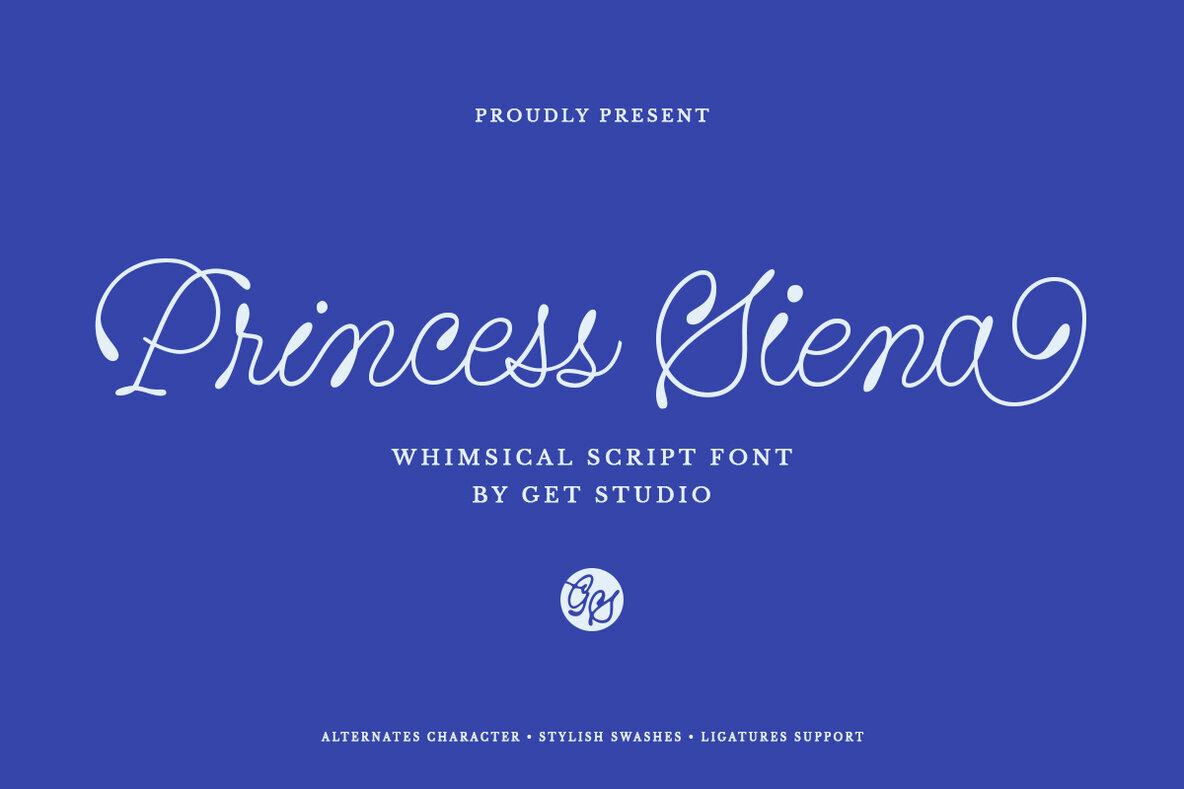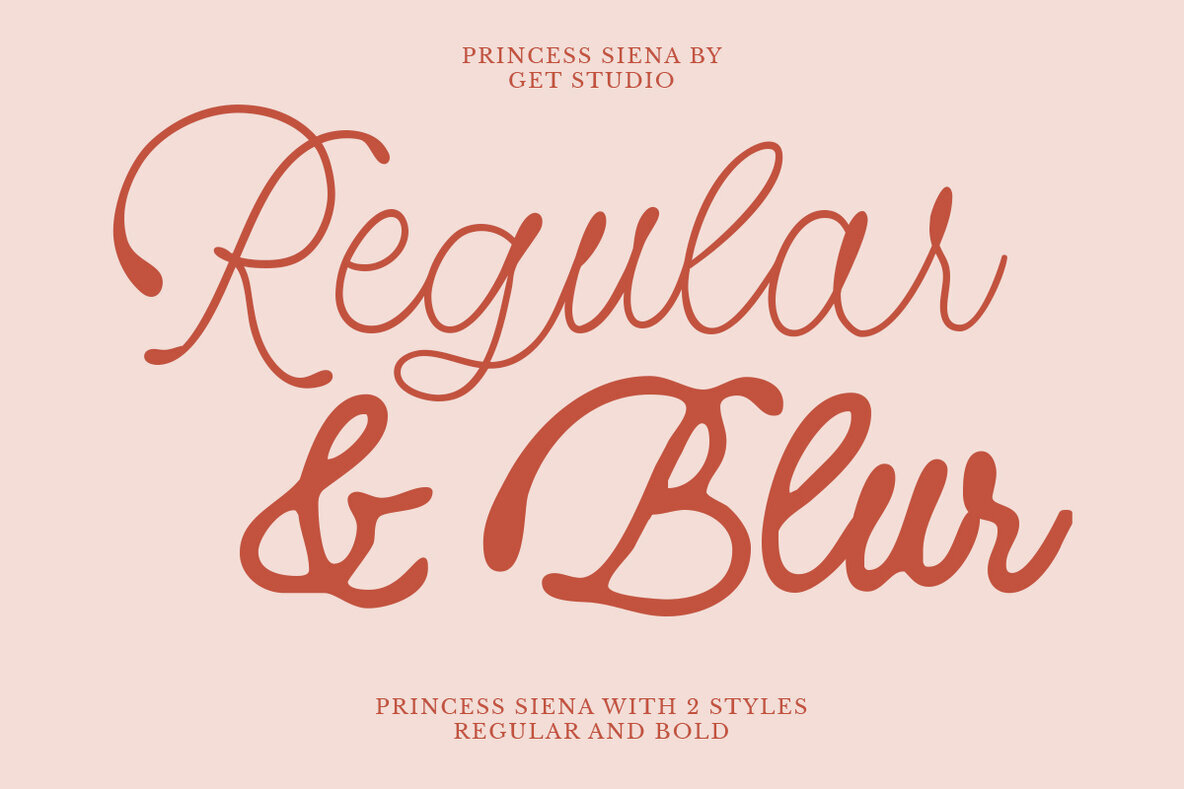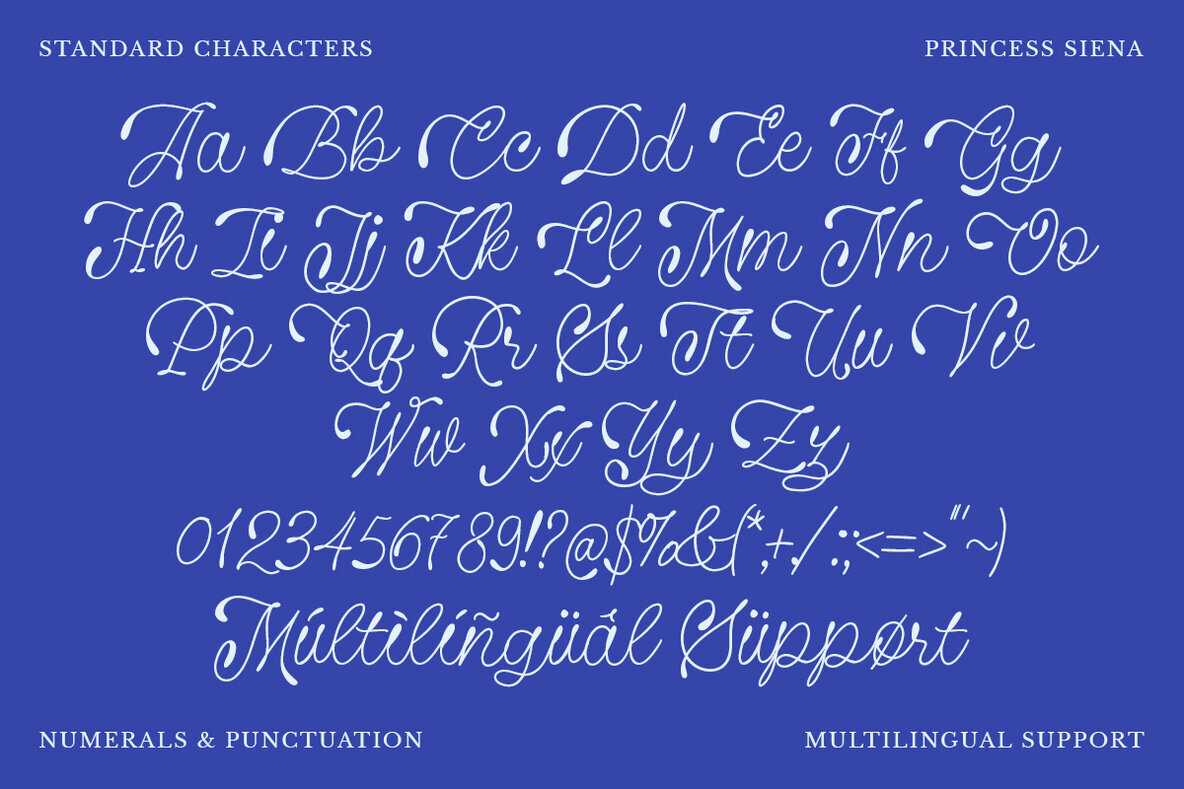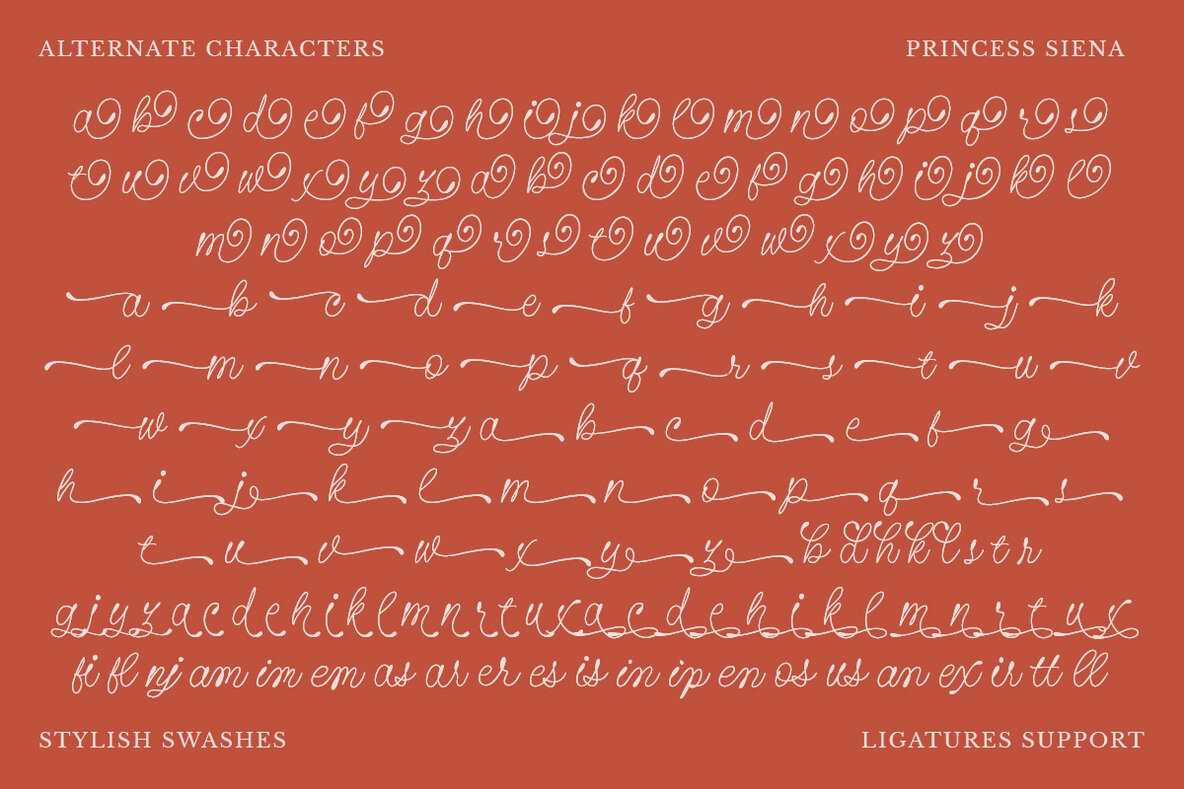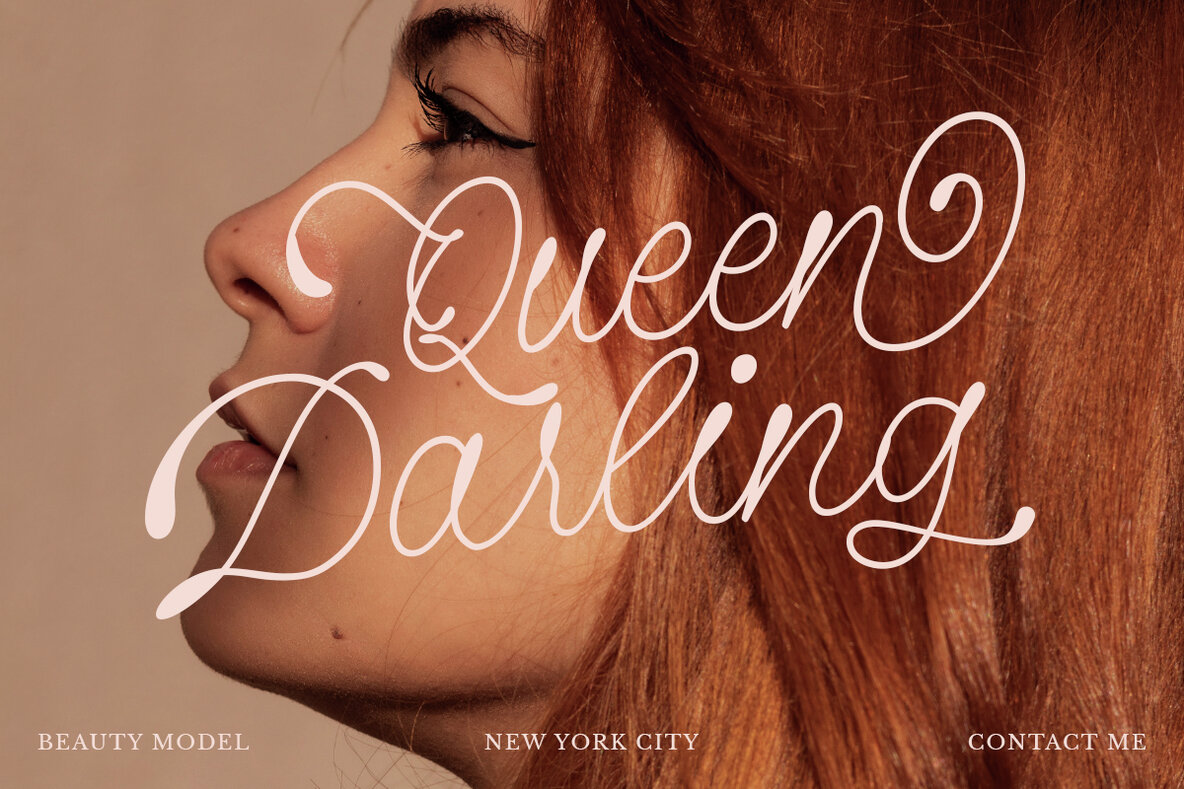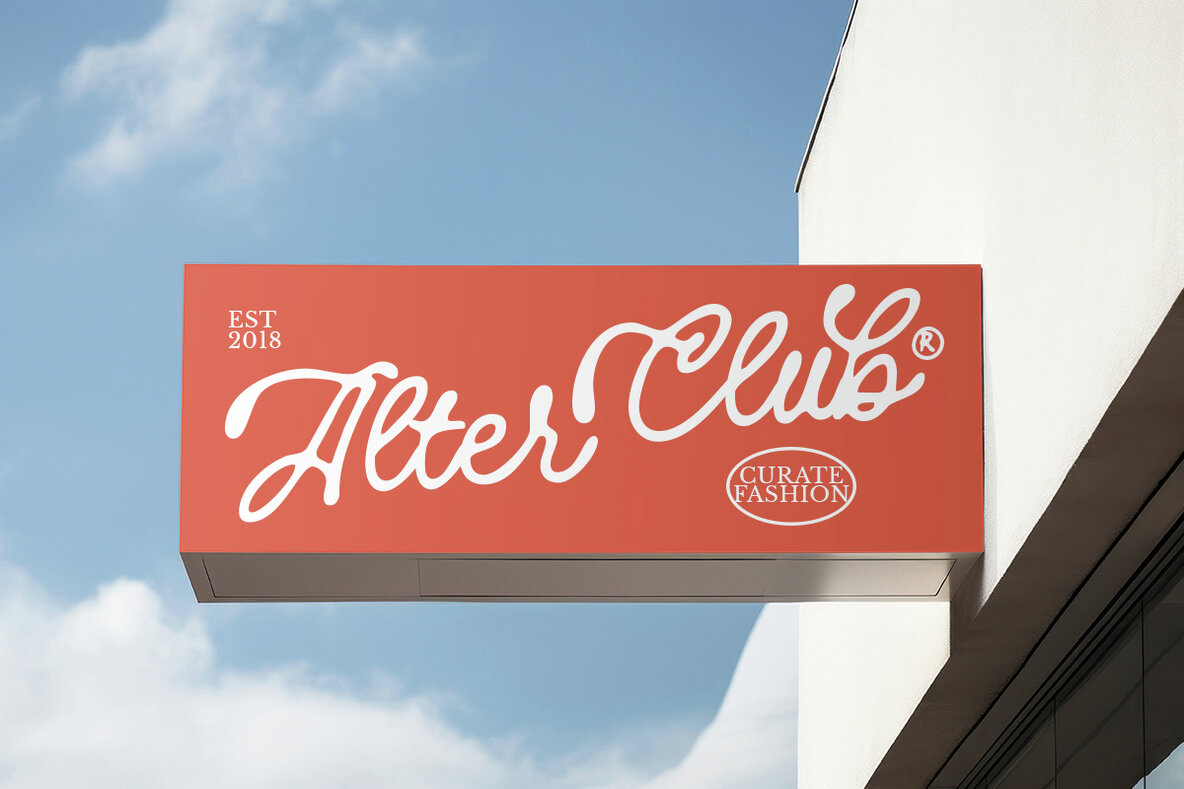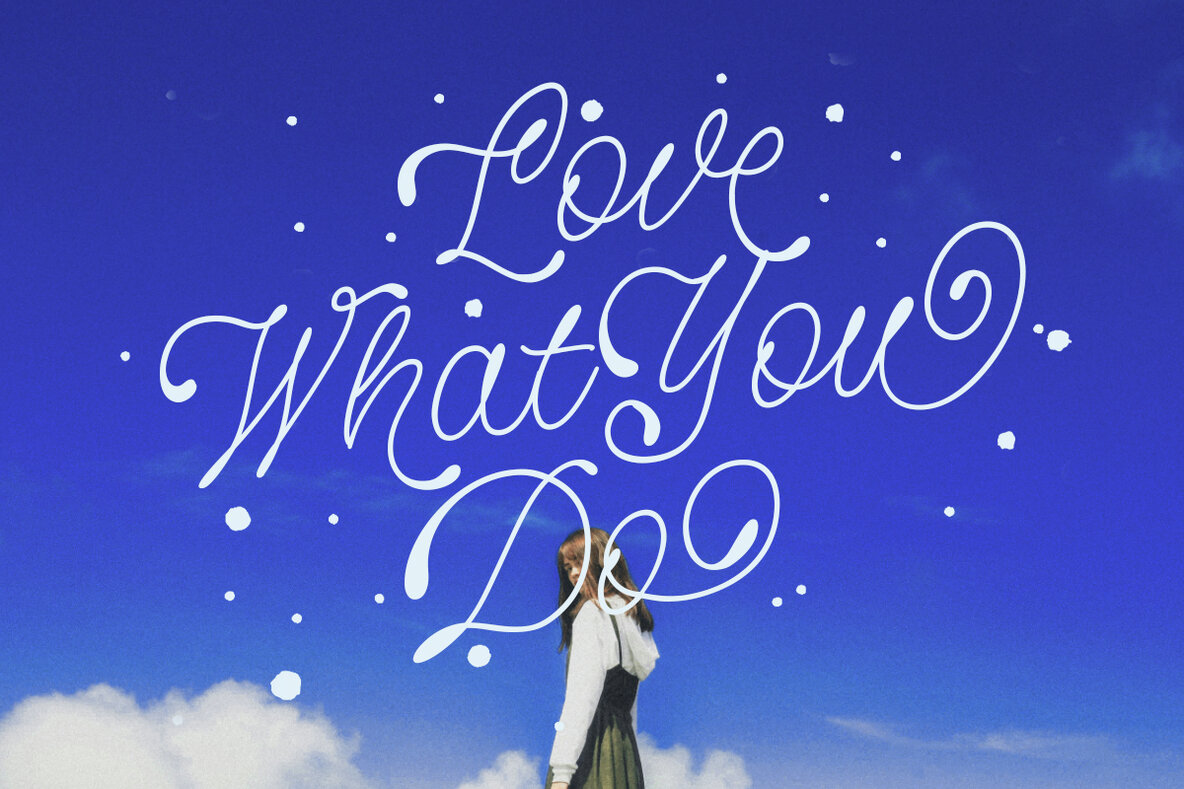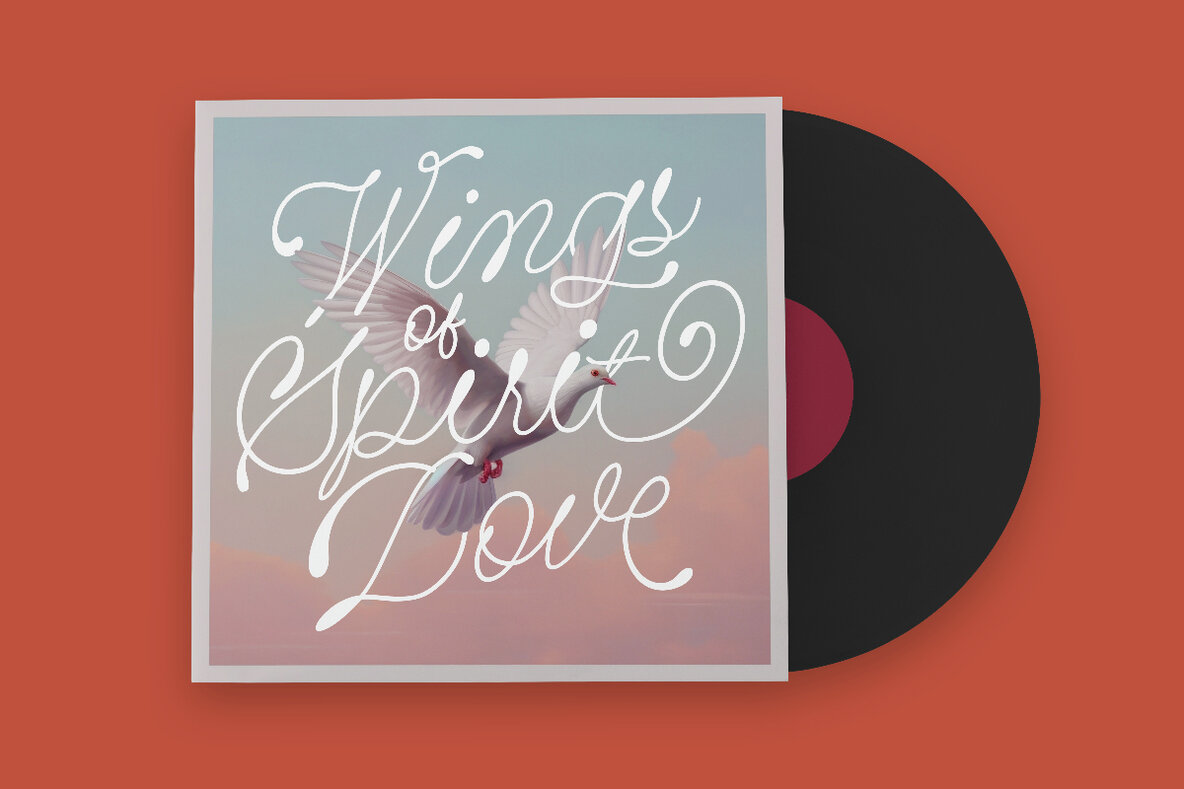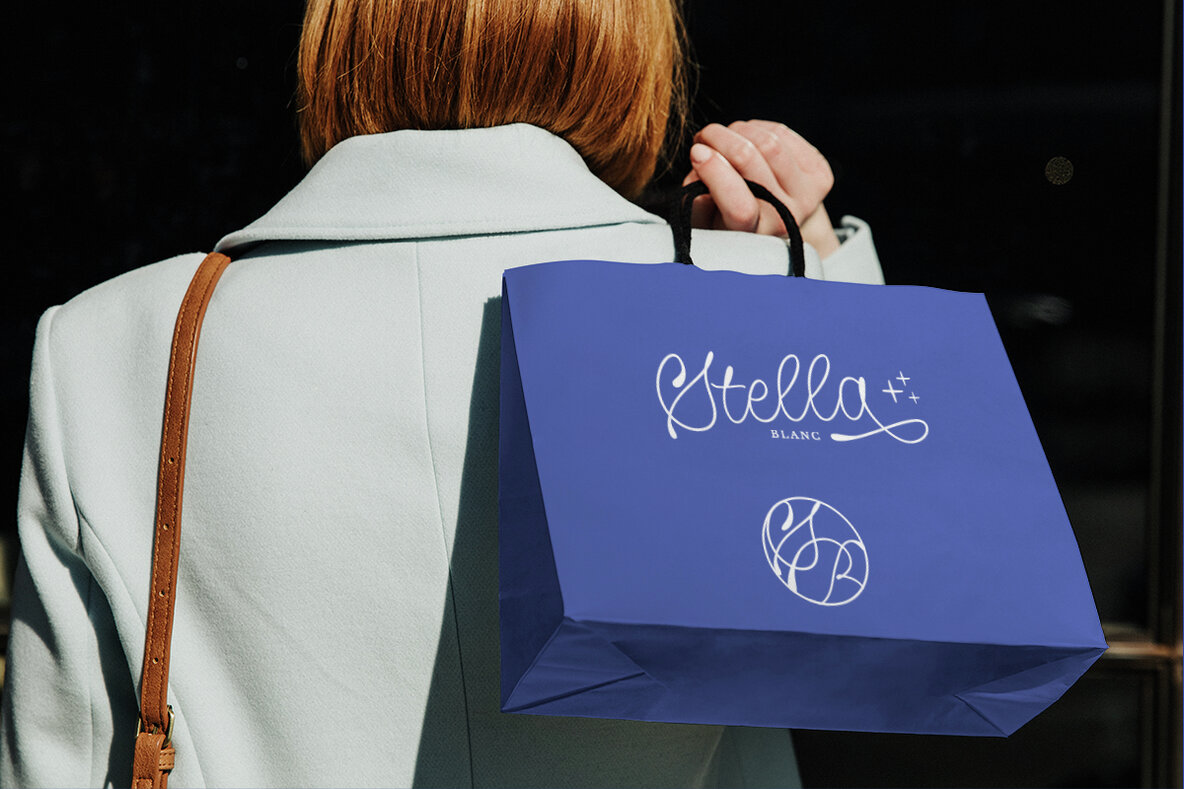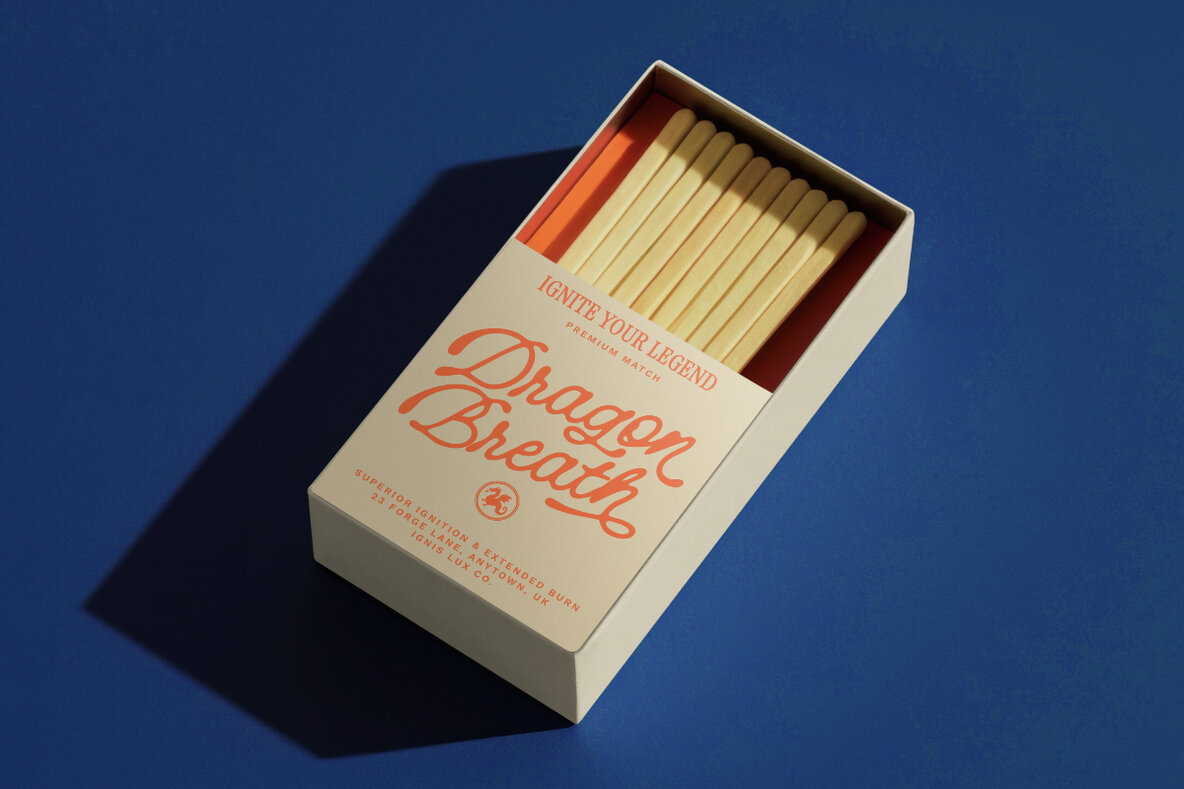
Princess Siena Font
Princess Siena Blur Regular
Princess Siena Regular
Princess Siena is a monoline script font that embodies elegance with its charming, soft strokes. Its graceful, flowing letterforms introduce a fairytale-like allure to designs, making it perfect for wedding invitations, feminine branding, and romantic stationery. Designed for both playfulness and refinement, Princess Siena turns each word into a magical narrative.Princess Siena: A Whimsical Monoline Script